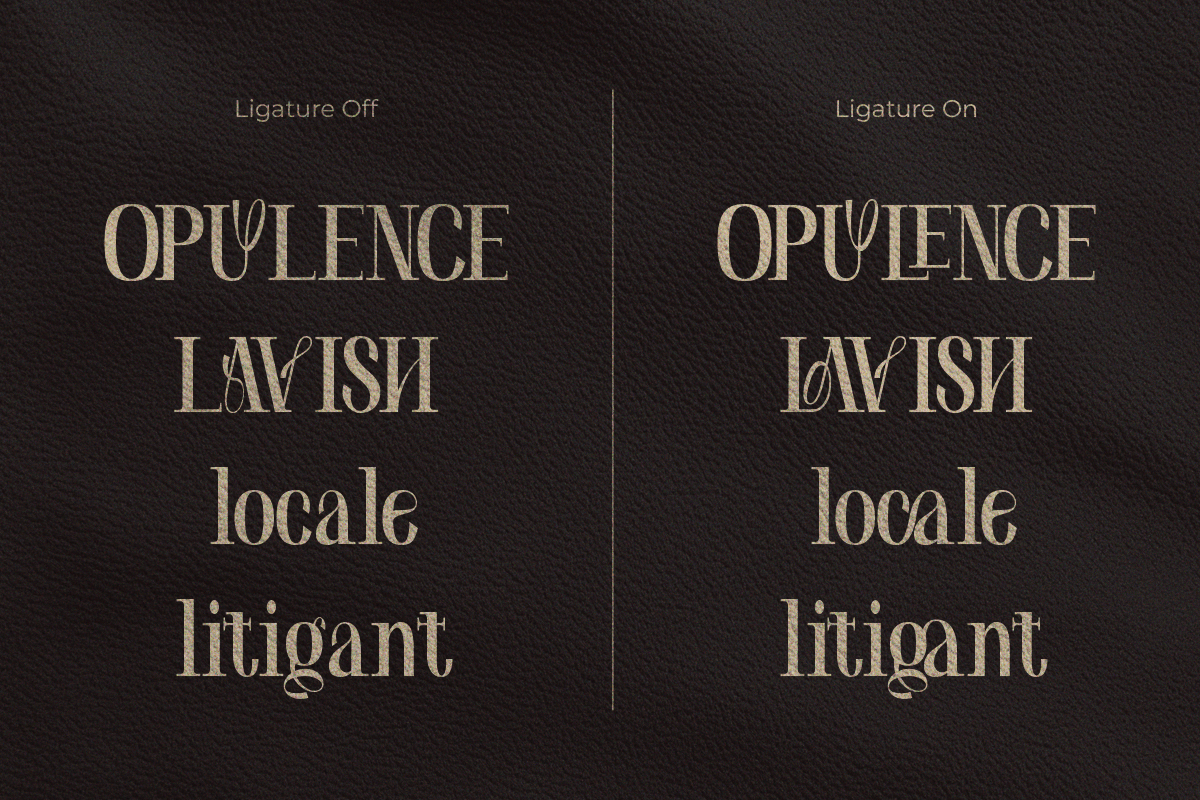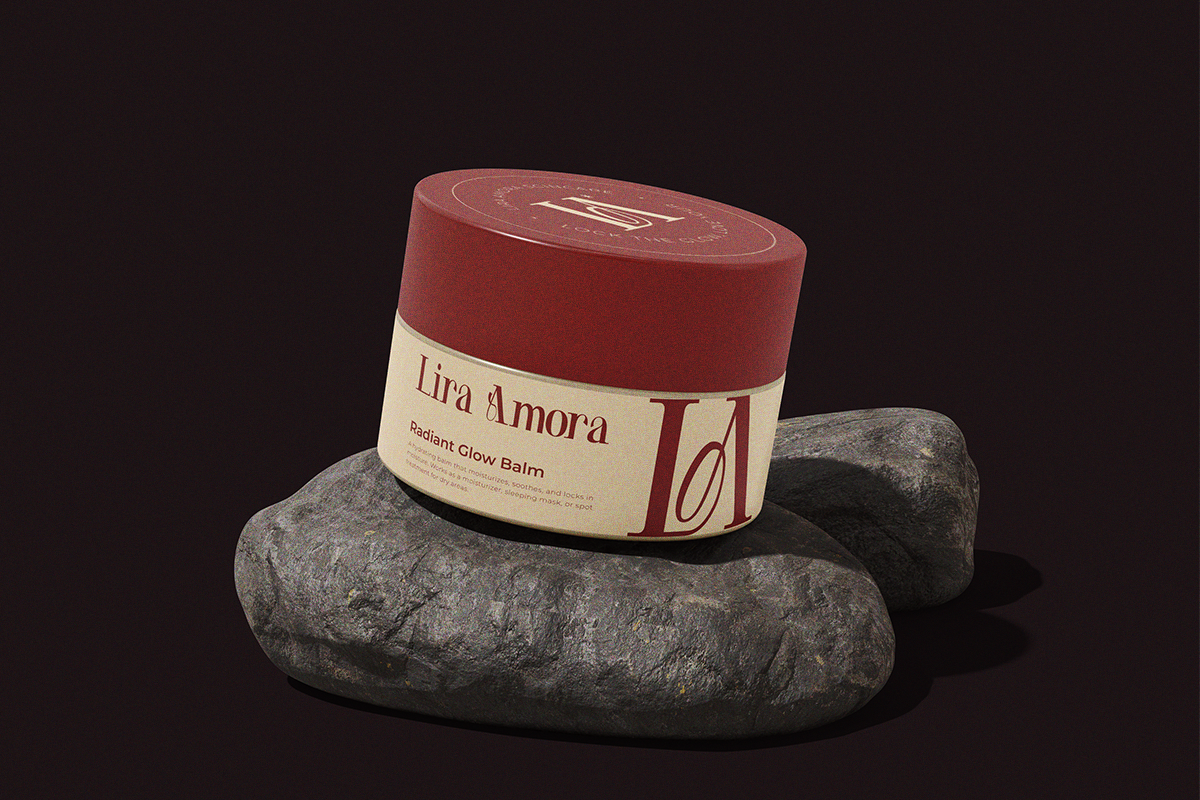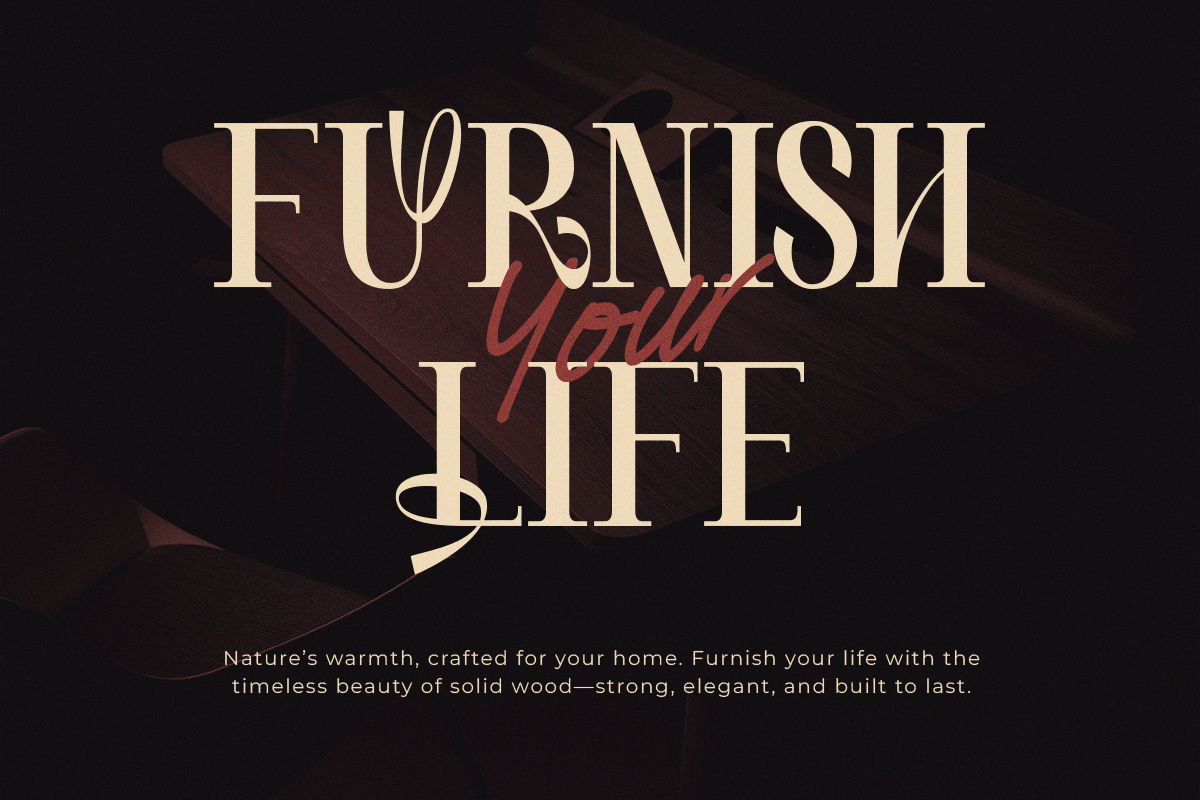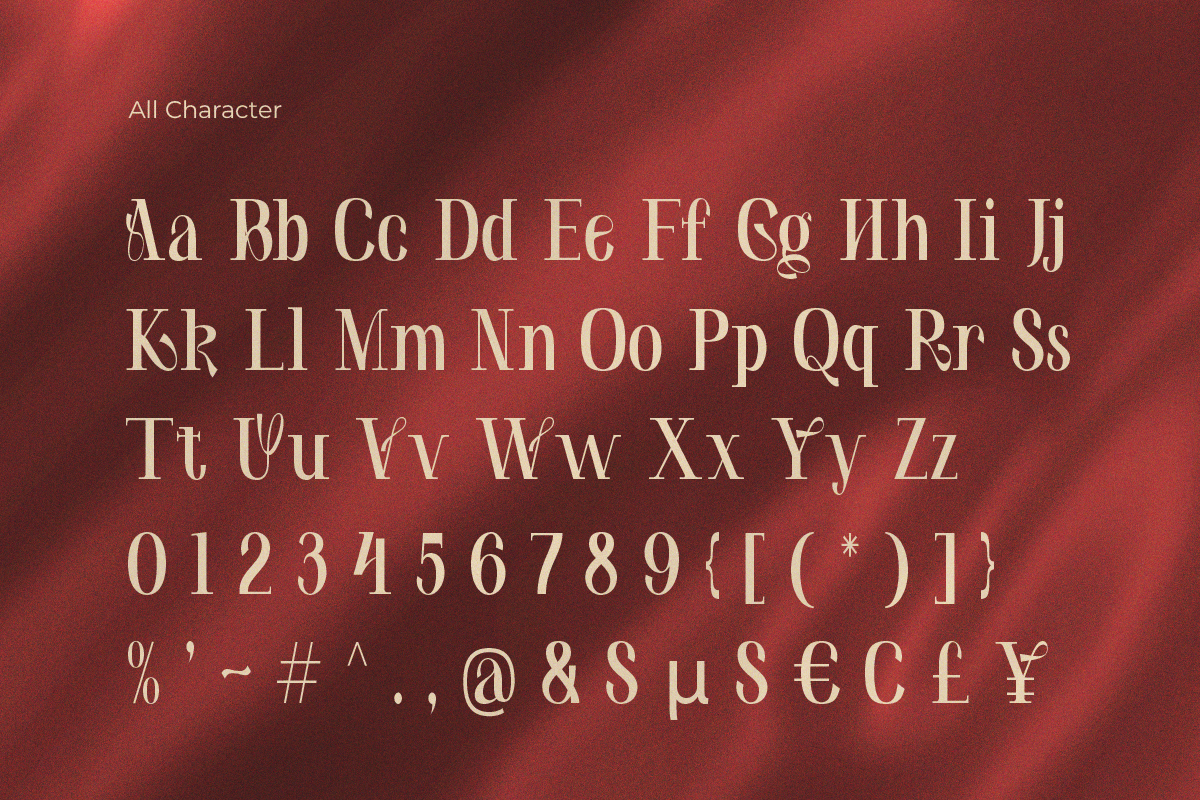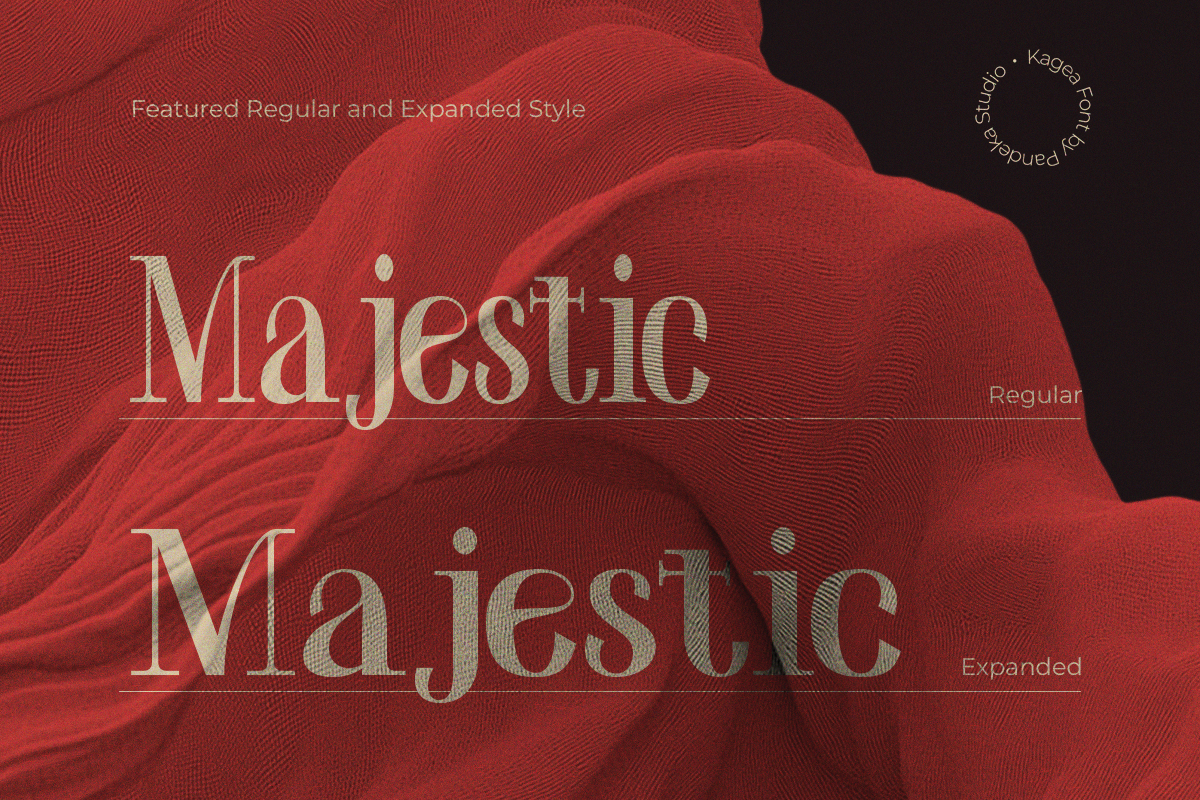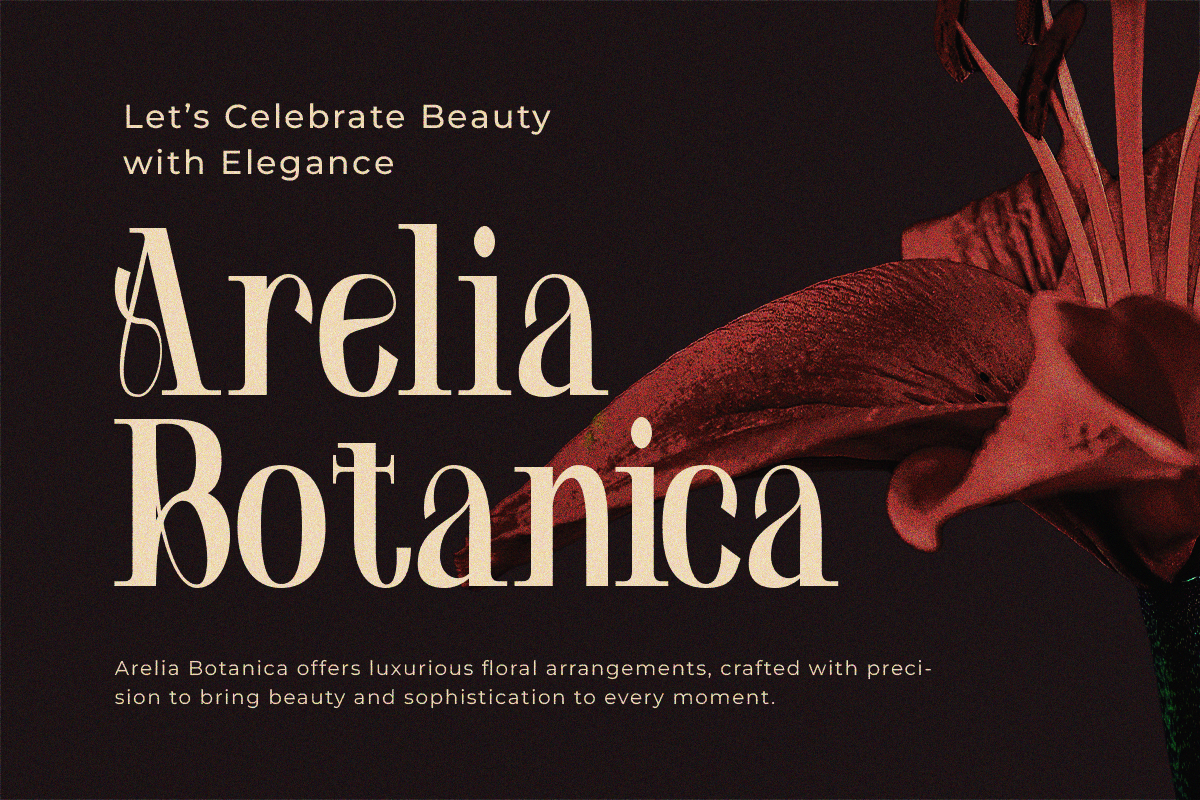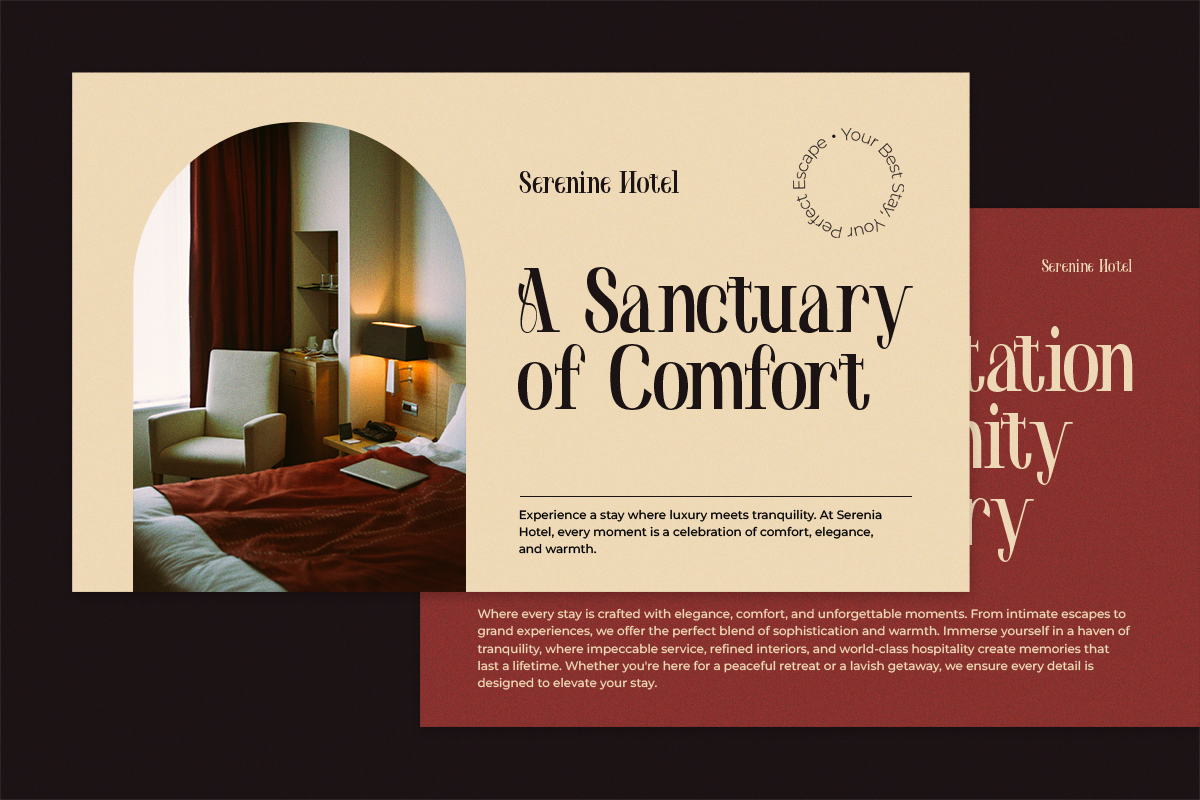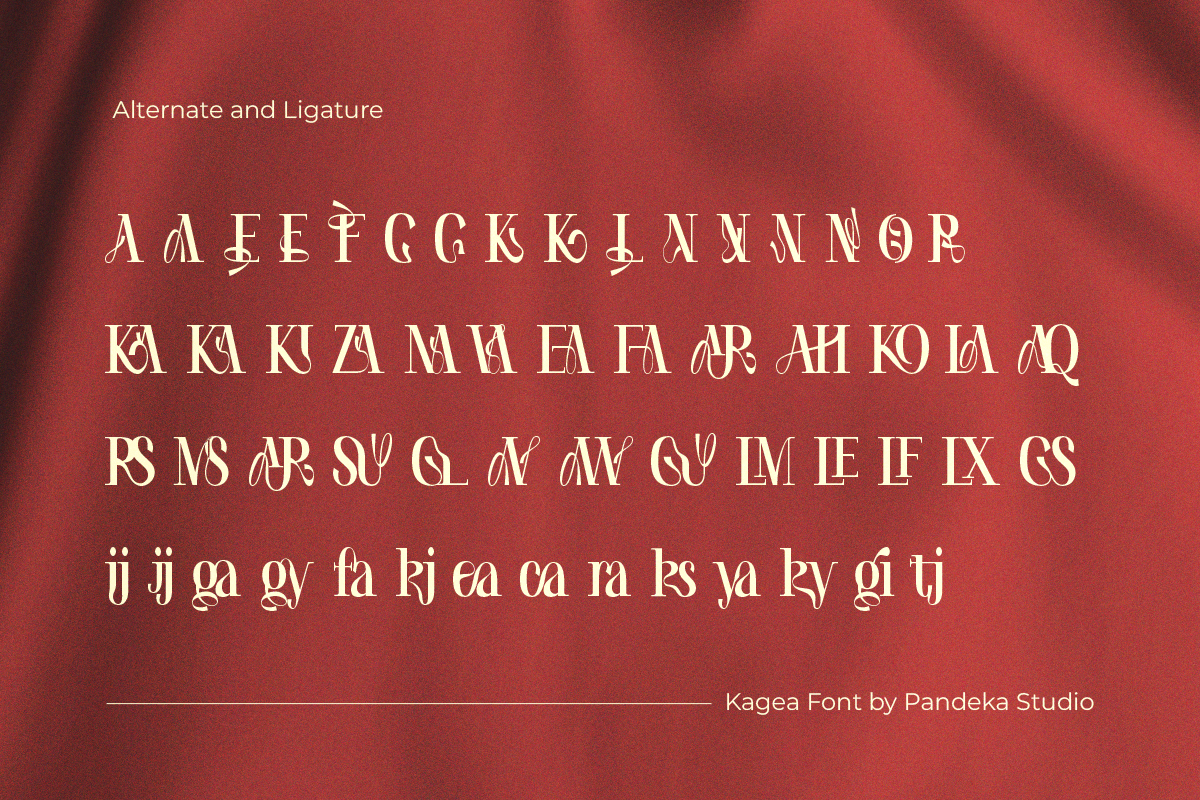
Kagea - Elegant Luxury Serif
Kagea – Elegant Luxury Serif
Kagea is a sophisticated serif typeface available in regular and condensed styles, featuring 50+ ligatures and alternates with multilingual support. Its refined proportions and chic lettering make it ideal for high-end branding, editorial layouts, premium packaging, fashion labels, and luxury product designs.
- 2 Style: Regular and Condensed
- Full Character Set: Uppercase, lowercase, numbers, symbols, and punctuation
- 50+ Ligatures and alternates